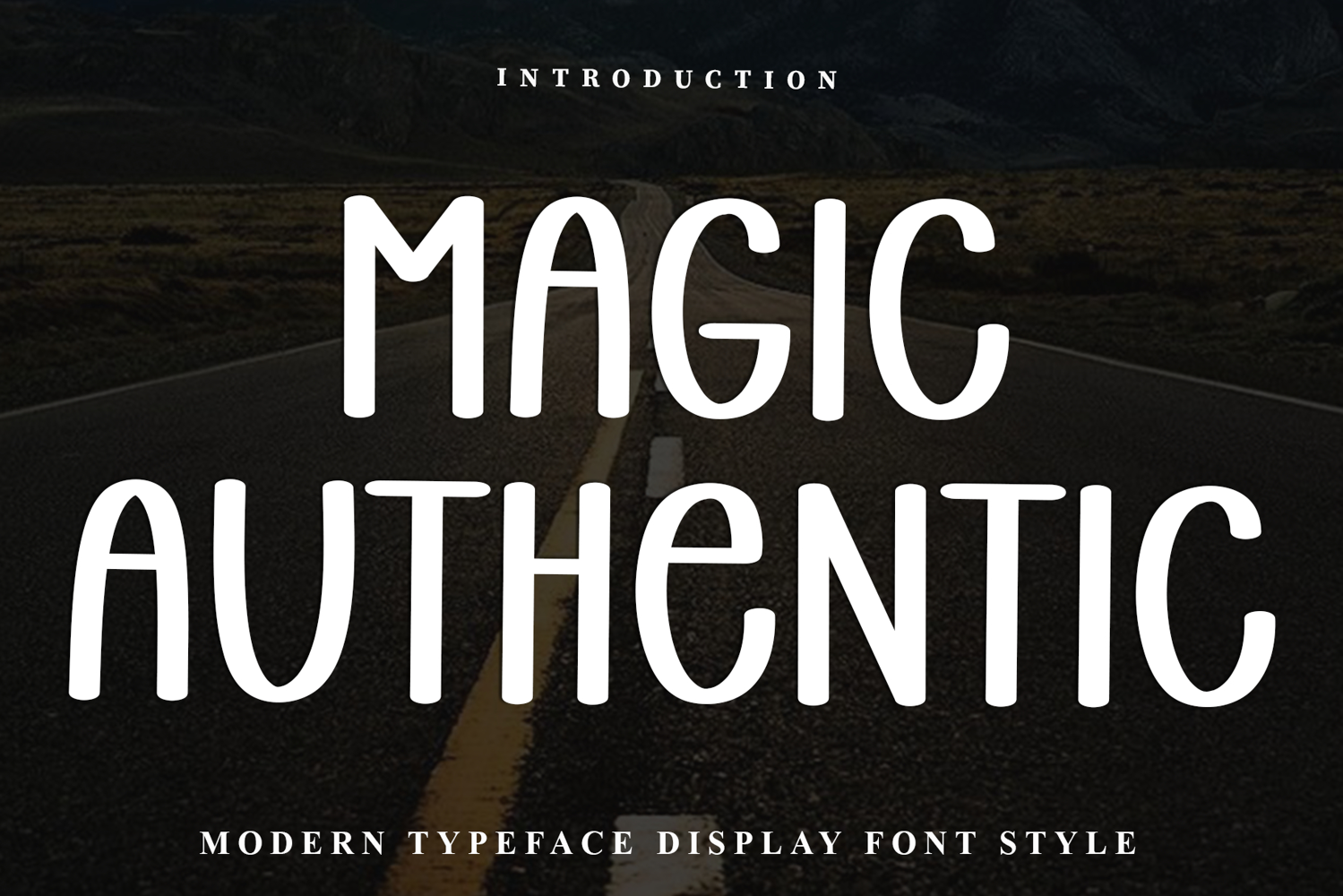
Magic Authentic
Magic Authentic is a beautiful and eye-catching font designed with a soft, unique touch. Its distinctive strokes give it a special character, making it meaningful and versatile for future use. With various characters, it’s perfect for design projects, crafts, and other creative works.